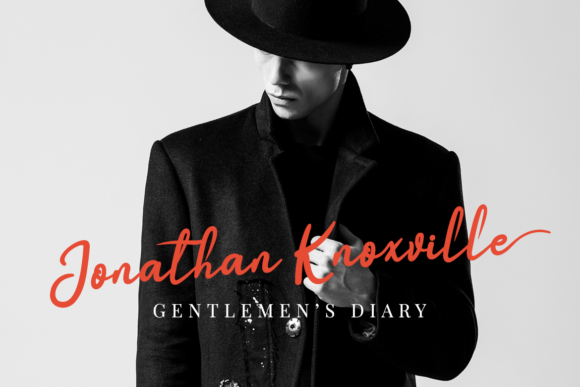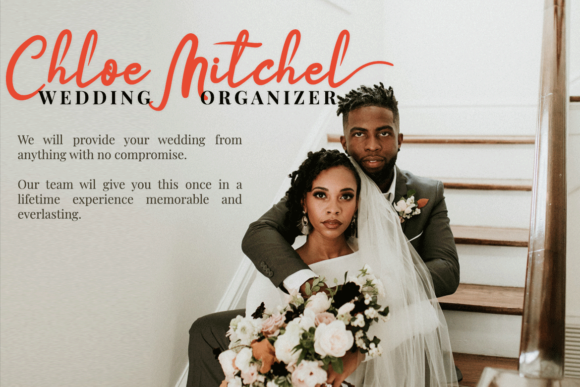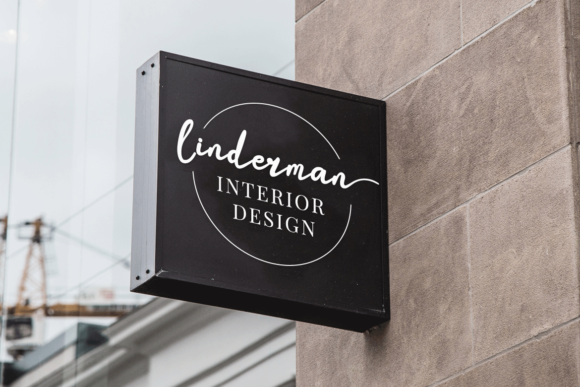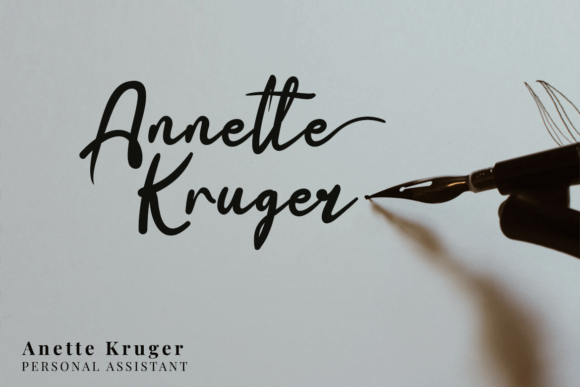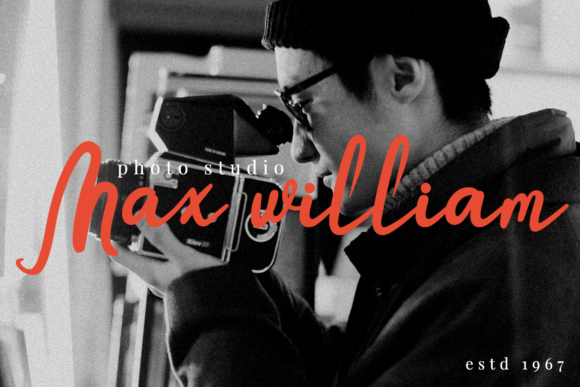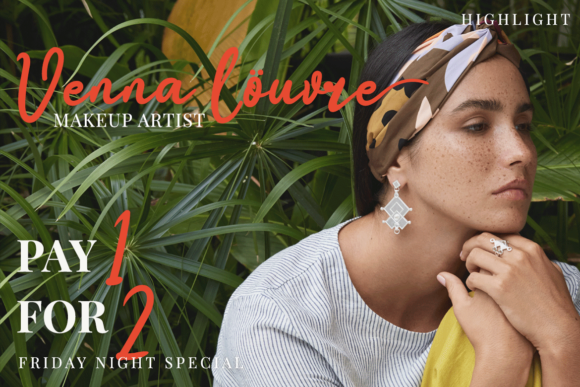
Introducing Boostnia Font: Elevate Your Designs with Elegance and Sophistication
In the world of typography, a font can make or break a design. For designers and crafters seeking to add a touch of luxury and refinement to their projects, Boostnia Font is an exceptional choice. This chic, refined script font embodies sophistication and elegance, making it the perfect match for a wide range of applications.
What Makes Boostnia Font Stand Out?
Boostnia Font boasts a range of features that set it apart from other script fonts. Its stylish alternates and ligatures provide a high level of versatility, allowing designers to experiment with different looks and styles. Whether you’re working on a branding project, creating wedding invitations, or designing packaging, Boostnia Font offers the perfect blend of elegance and flair.
One of the key benefits of Boostnia Font is its PUA (Private Use Area) encoding. This means that accessing the font’s extensive range of glyphs and swashes is incredibly easy. Designers can effortlessly navigate the font’s features, allowing for a seamless design experience. With PUA encoding, you can quickly and easily add the perfect touch of sophistication to your project.
Boostnia Font’s versatility makes it suitable for a wide range of projects, including:
- Branding and Logo Design: Create a lasting impression with a custom logo that exudes elegance and refinement.
- Wedding Invitations and Stationery: Add a touch of luxury to your wedding invitations, save-the-dates, and other stationery.
- Packaging Design: Elevate your product packaging with a sophisticated font that reflects your brand’s values.
- Advertising and Marketing Materials: Create eye-catching ads and marketing materials that showcase your brand’s personality.
Why Choose Boostnia Font?
With so many script fonts available, why choose Boostnia Font? Here are just a few reasons:
- Unique and Elegant Design: Boostnia Font’s refined design ensures that your project will stand out from the crowd.
- Highly Versatile: With stylish alternates and ligatures, you can experiment with different looks and styles to find the perfect fit for your project.
- Easy to Use: PUA encoding makes it easy to access the font’s features, saving you time and frustration.
Tips for Using Boostnia Font
To get the most out of Boostnia Font, here are a few tips:
- Experiment with Different Sizes: Boostnia Font looks great in a variety of sizes, from large headings to smaller body text.
- Play with Alternates and Ligatures: Take advantage of the font’s stylish alternates and ligatures to add visual interest to your design.
- Pair with Other Fonts: Boostnia Font pairs well with a range of other fonts, so don’t be afraid to experiment with different combinations.
Boostnia Font is a sophisticated and elegant script font that is perfect for designers and crafters seeking to add a touch of luxury to their projects. With its stylish alternates and ligatures, PUA encoding, and versatility, Boostnia Font is an exceptional choice for a wide range of applications. Whether you’re working on a branding project, creating wedding invitations, or designing packaging, Boostnia Font is sure to elevate your design and leave a lasting impression.